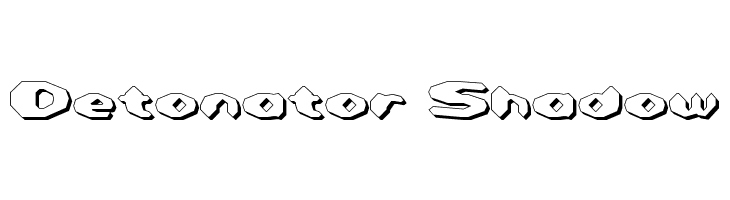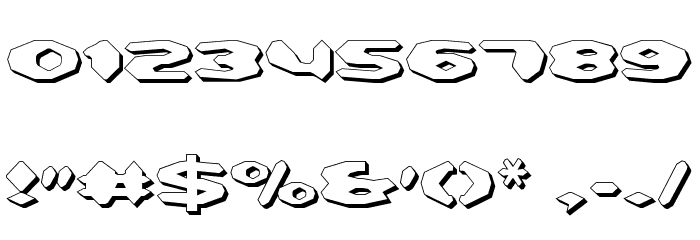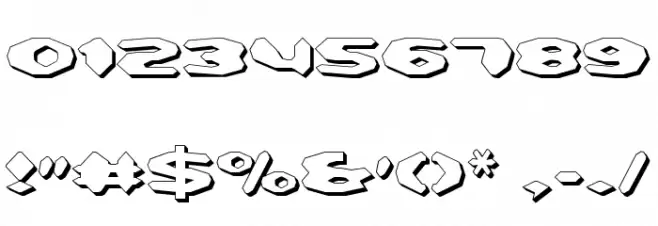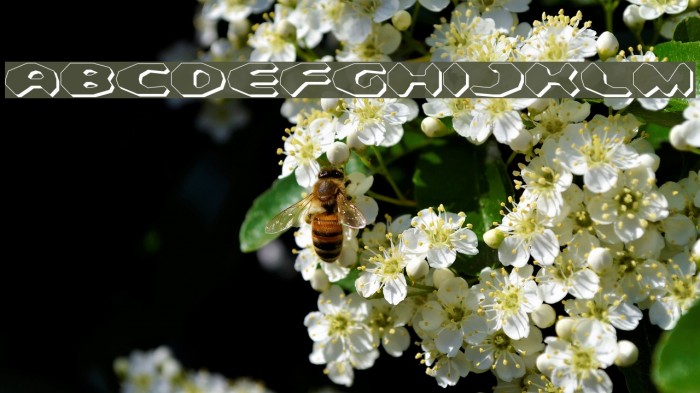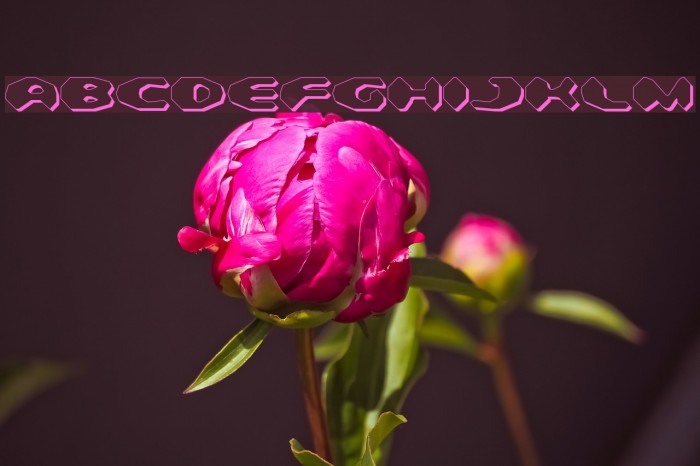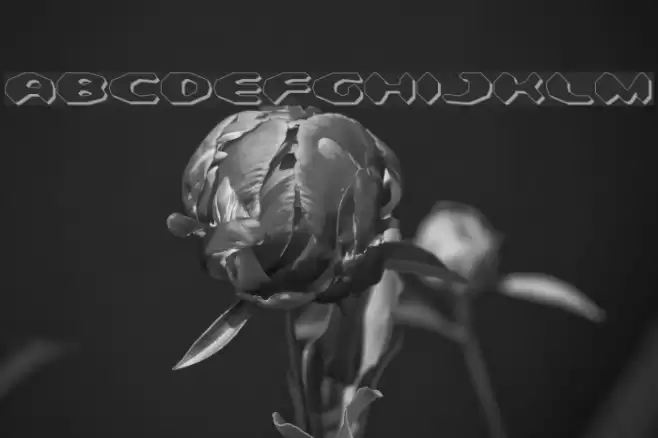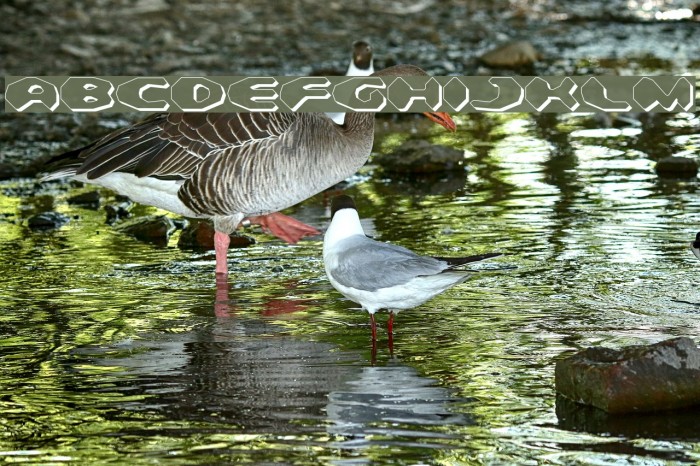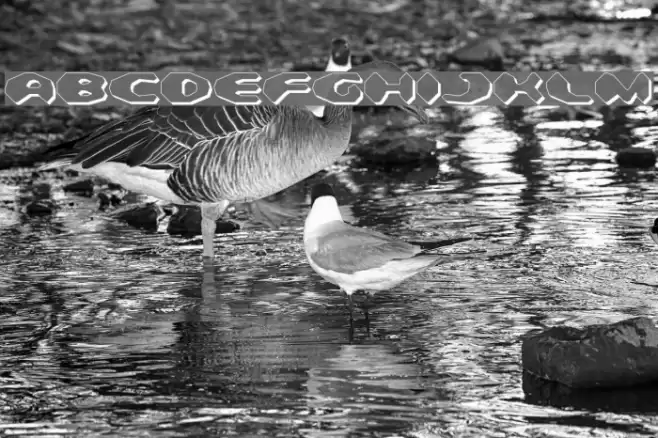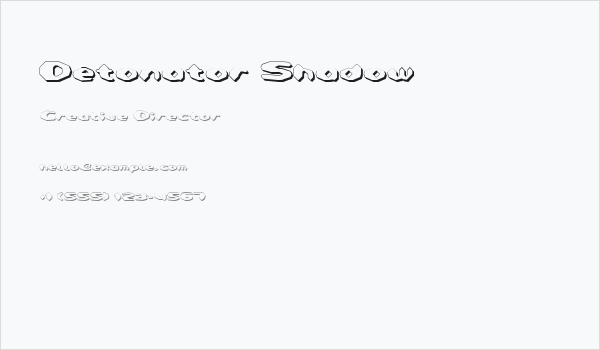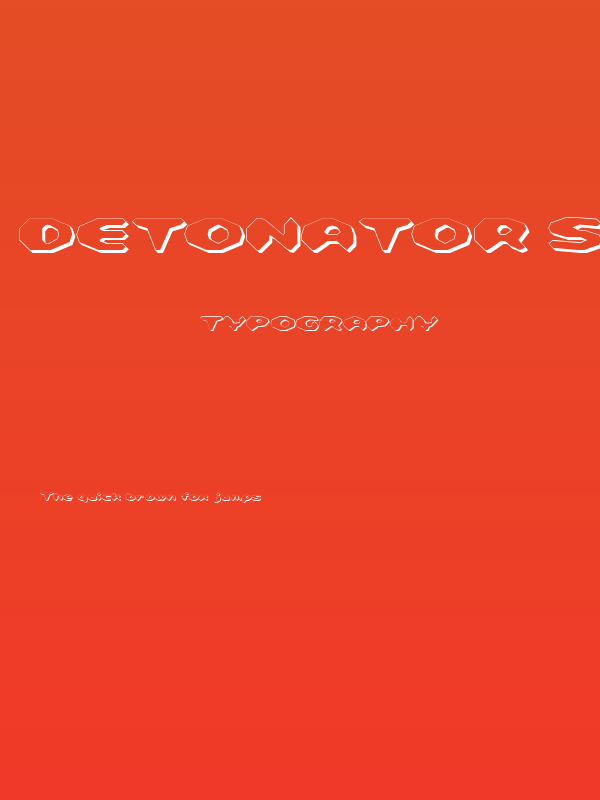
Detonator Shadow Font
Detonator Shadow Description
This font features a bold, three-dimensional shadow effect that gives it a dynamic and impactful appearance. The characters are designed with a blocky, angular style, creating a sense of depth and movement. The shadowing is consistent across all characters, enhancing the overall visual impact. The uppercase and lowercase letters maintain a uniform style, while the numbers and special characters are crafted to match the font's bold aesthetic. This font is ideal for projects that require a strong, eye-catching display, such as posters, logos, or headlines.
| Proposed Projects | Ideal for posters, logos, headlines, and any design needing a strong visual impact. |